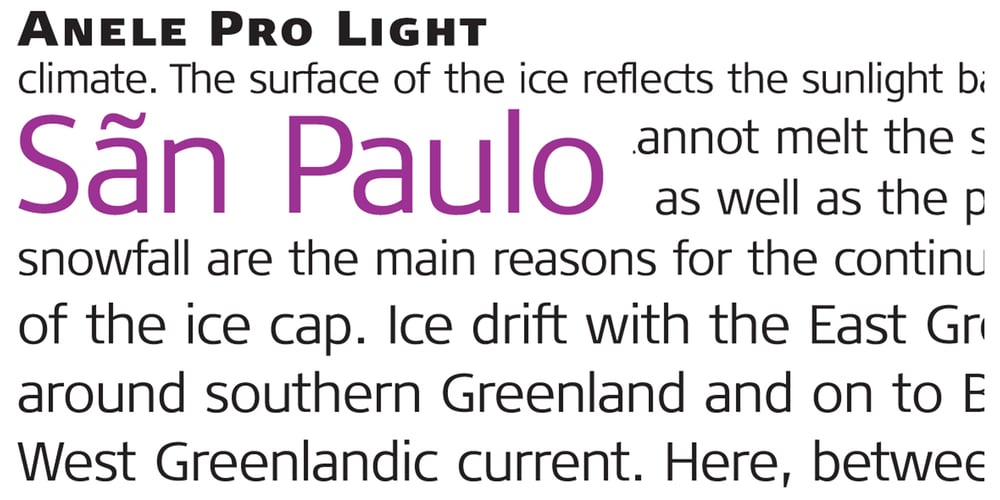
Anele Pro Font Family was designed by Ole Sondergaard and published by Ole Sondergaard. Anele Pro contains 10 styles and family package options. Anele is a classic grotesque in the bedt sense of the word in 5 weights and Italic that communicates in 140 languages. The font is created by the danish designer Ole Sondergaard who is also behind the award-winning FF Signa super family.